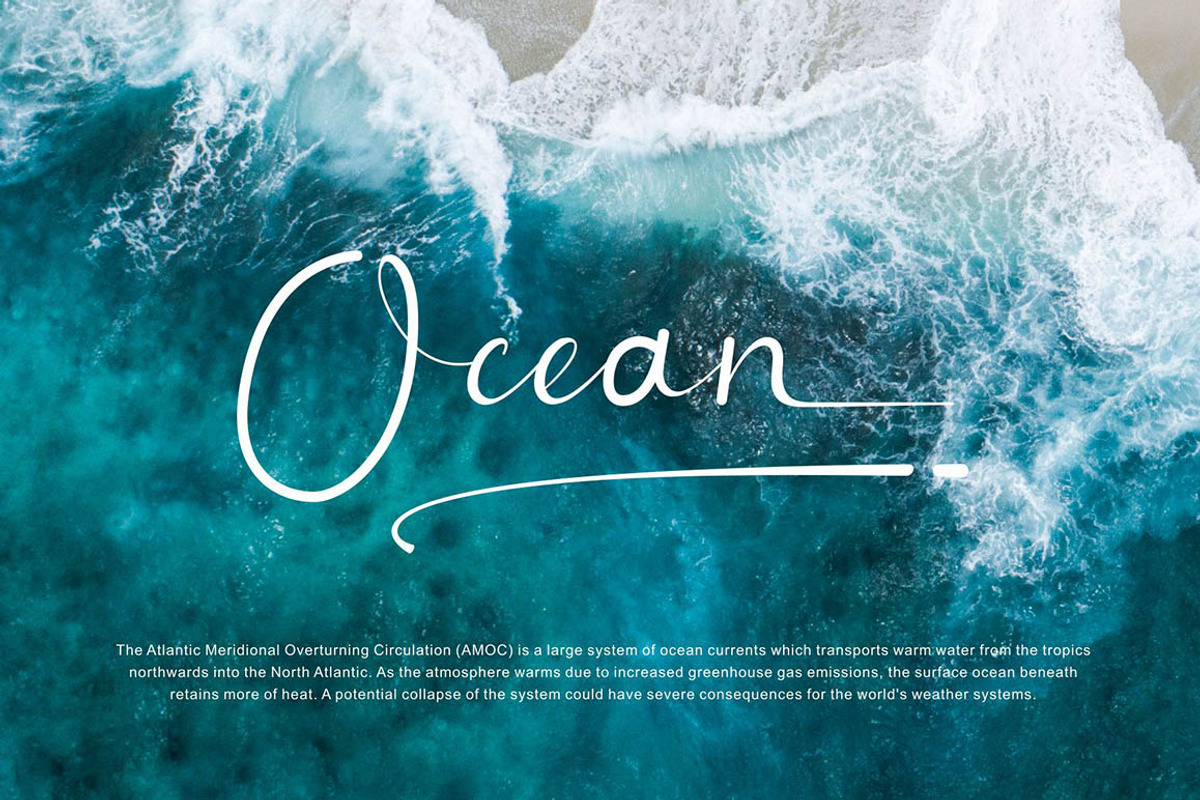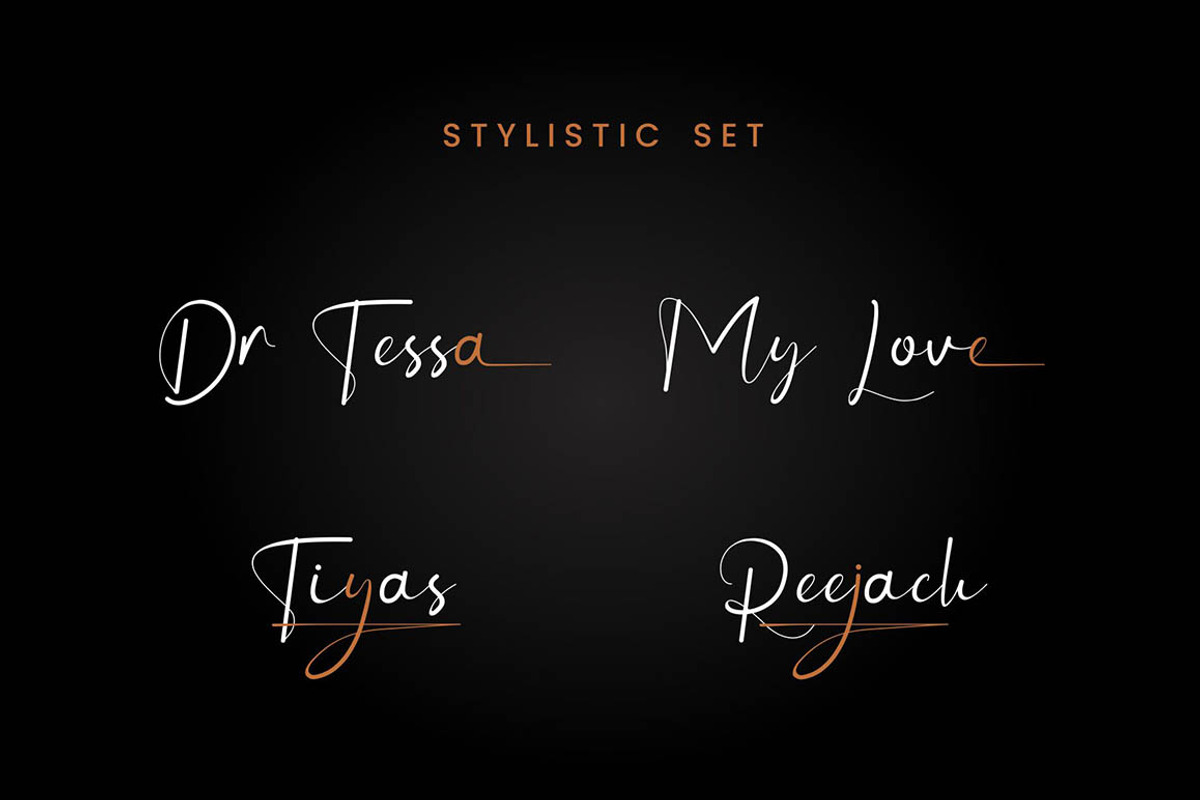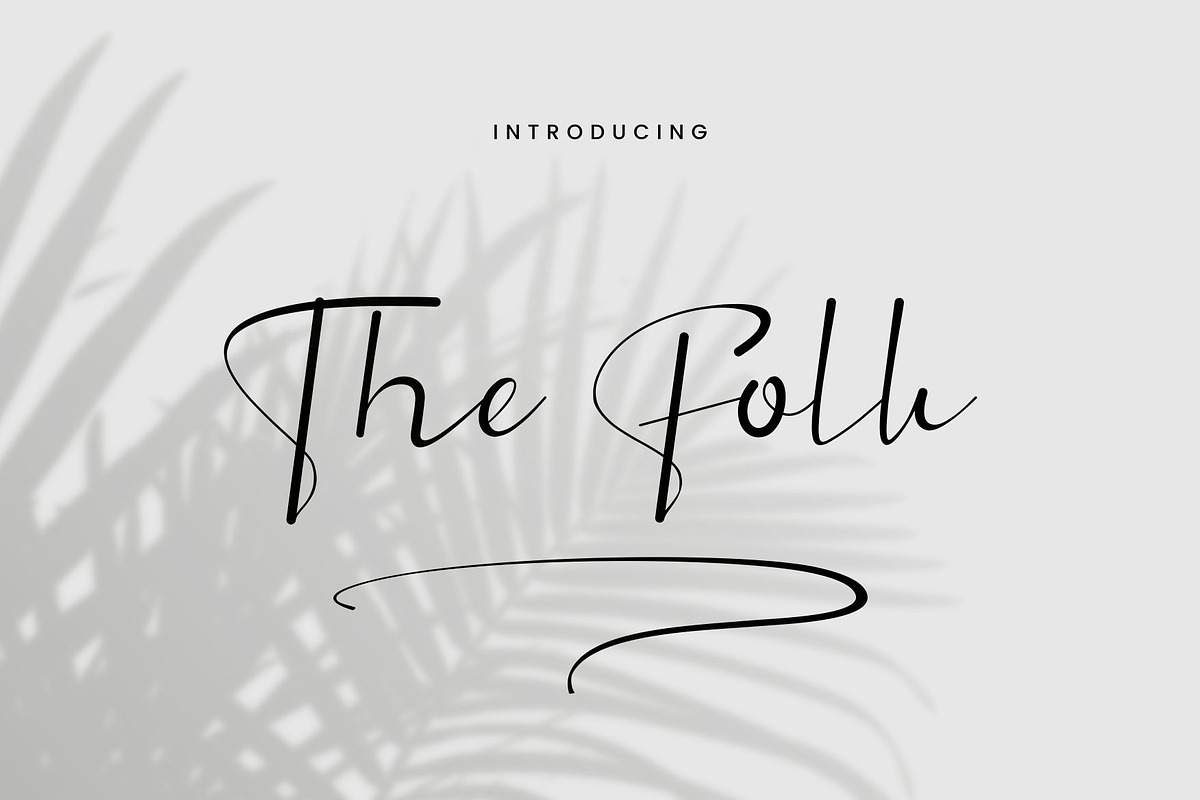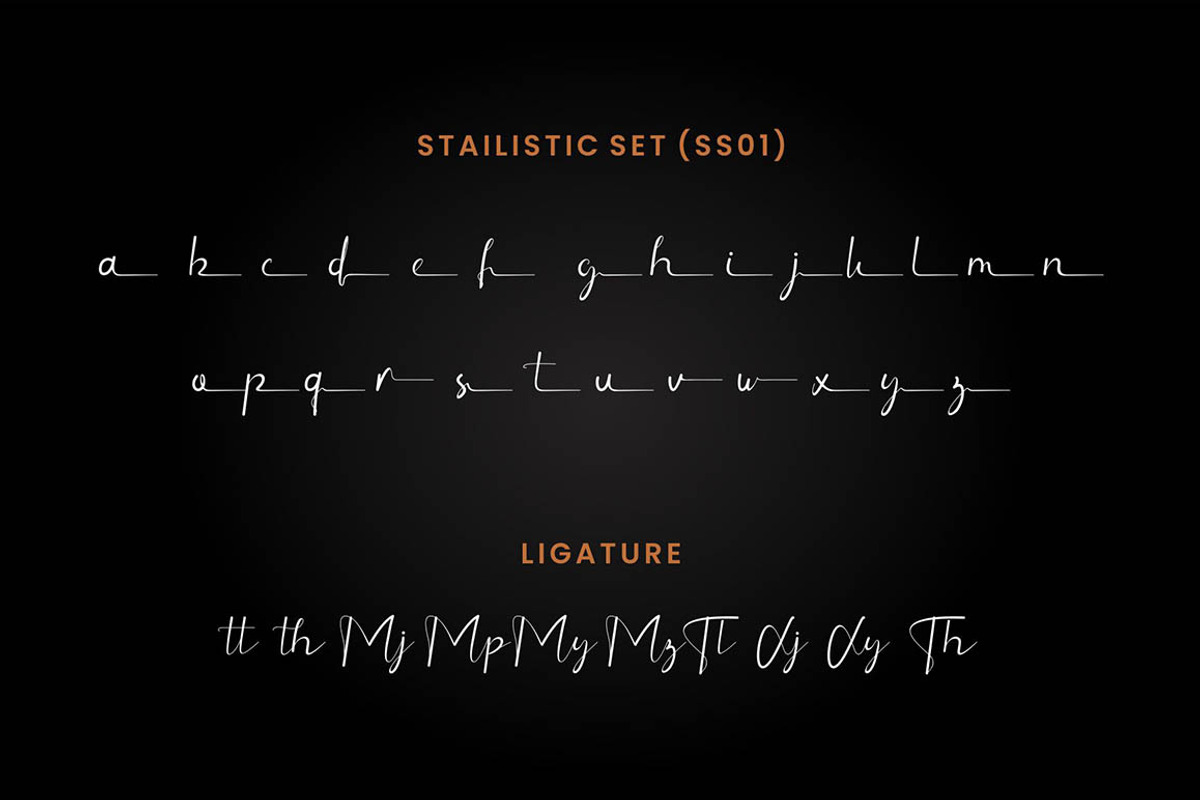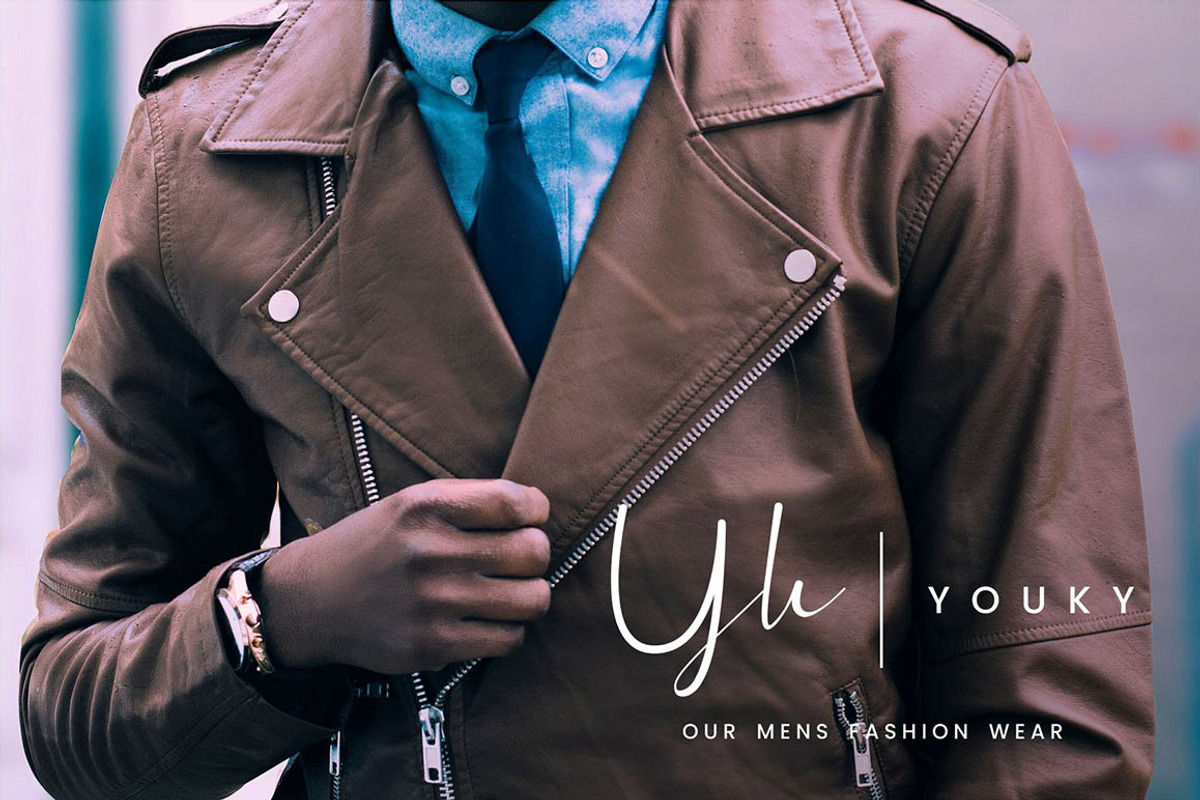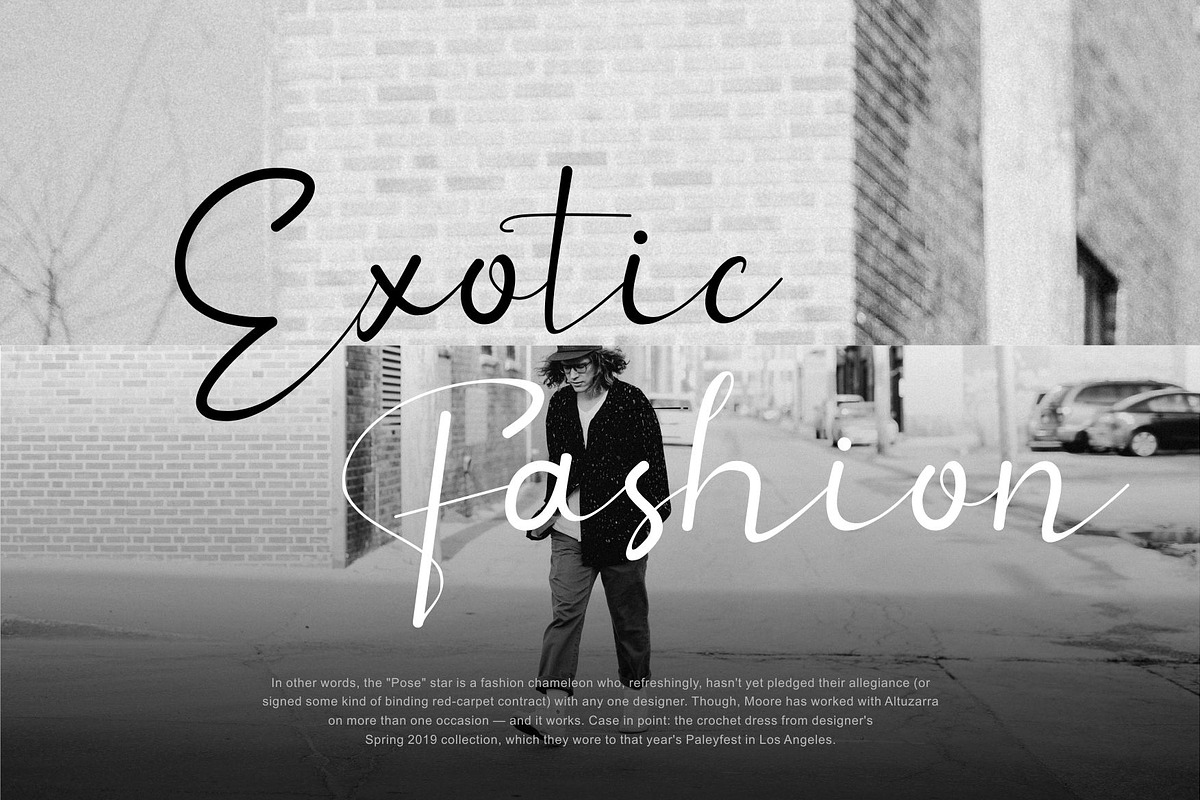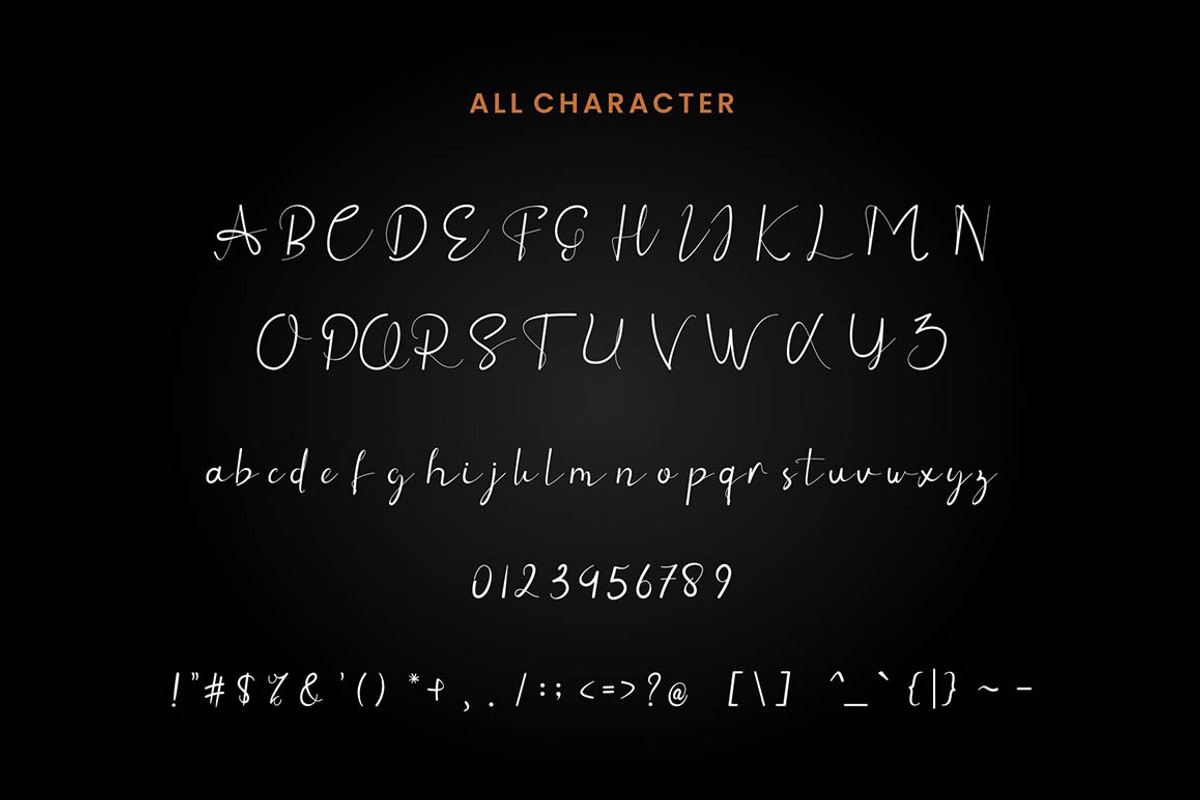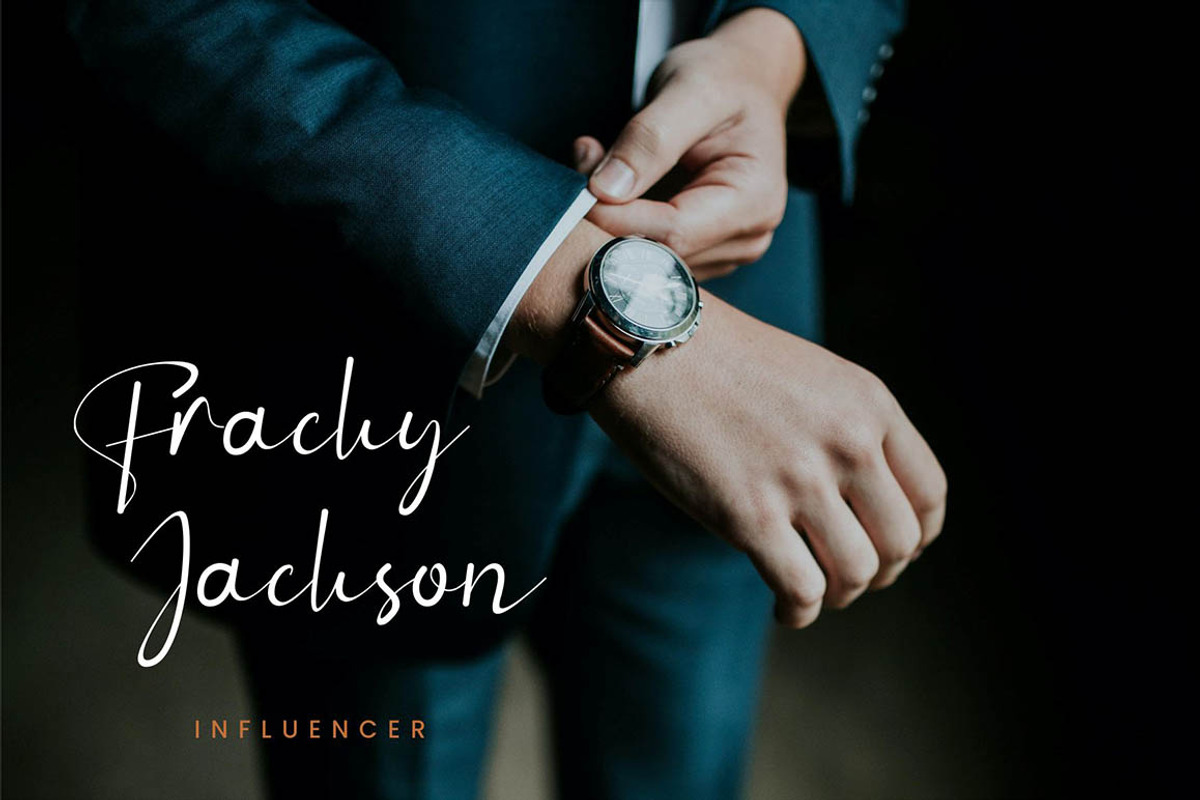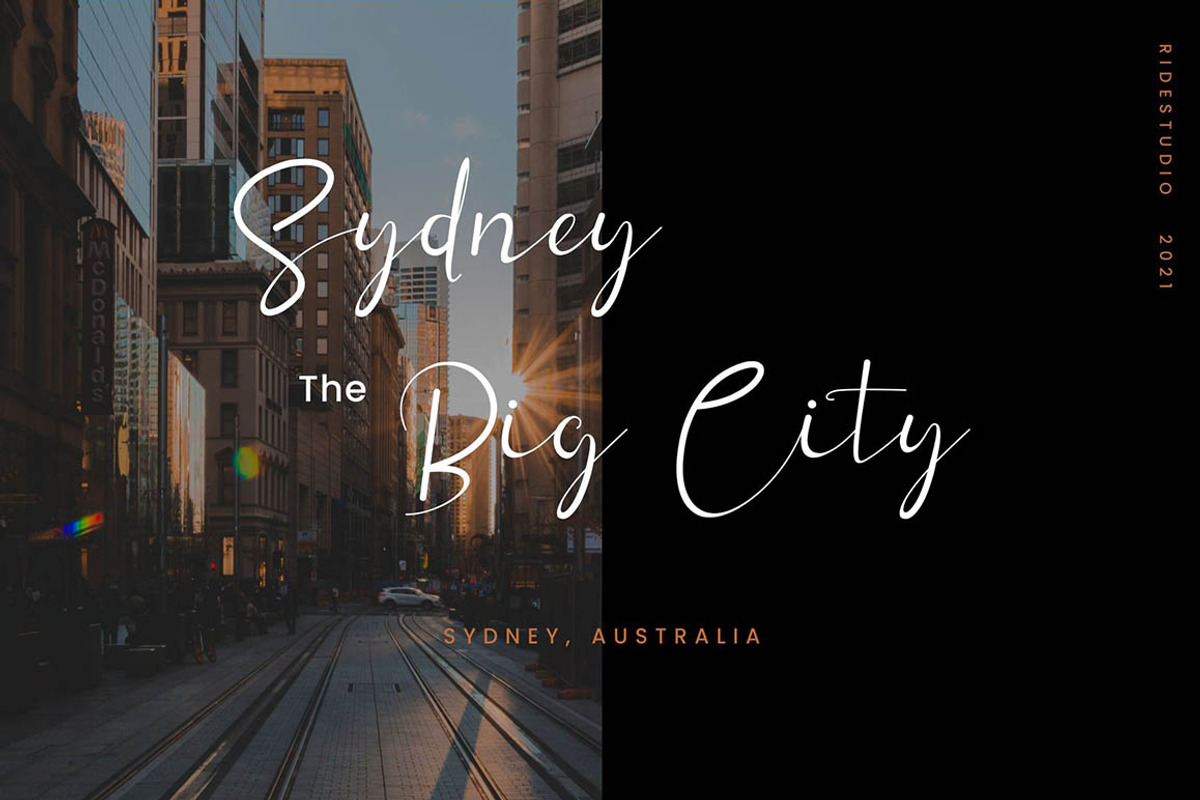
The Folk - Signature Font
Introducing The Folk - Signature Script Font
The Folk is a smooth, elegant and stylish handwritten font. It has a beautiful and balanced character and as a result, fits into a wide set of designs. Such as company logos, business cards, book titles, brand names, and others.